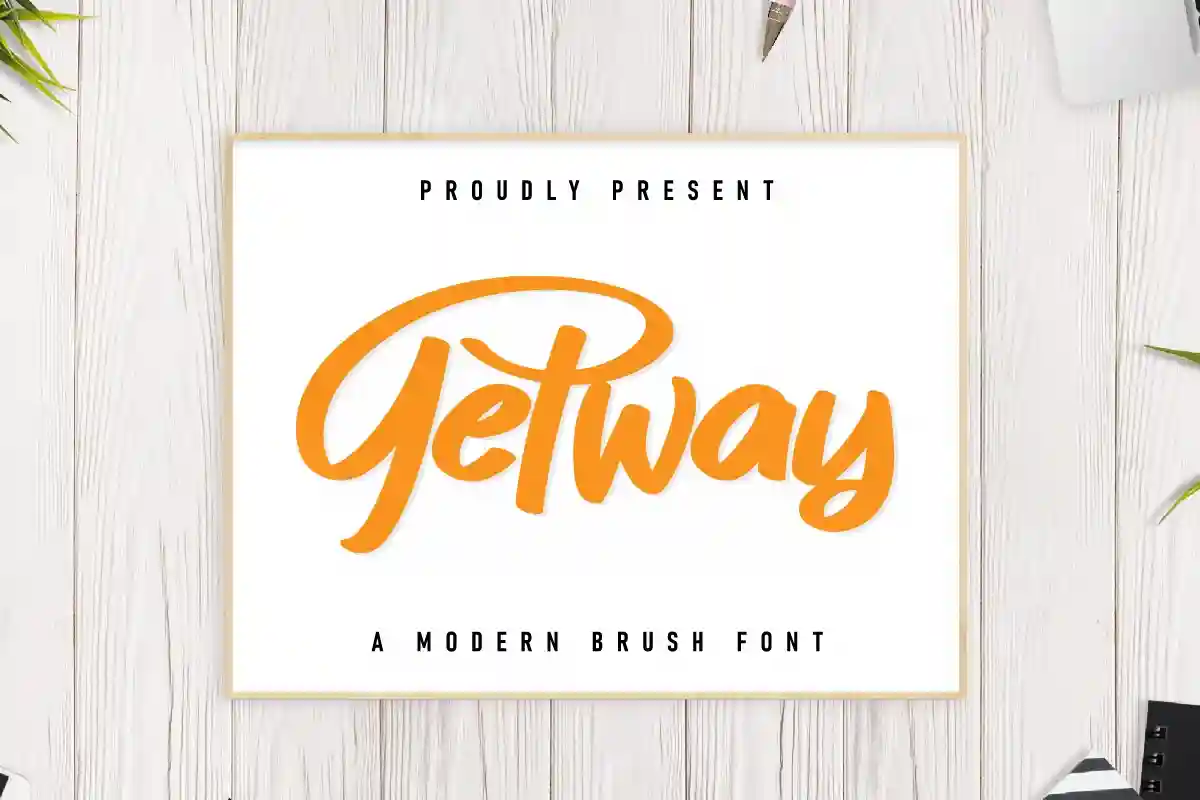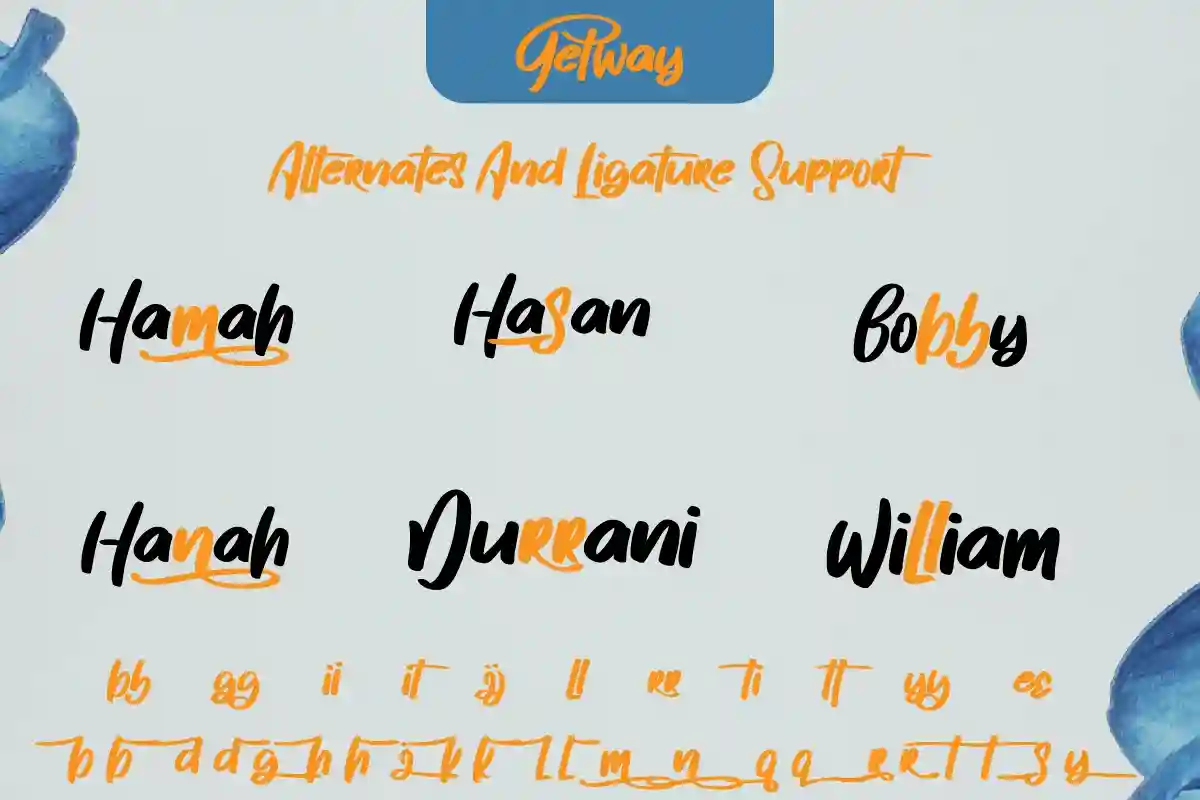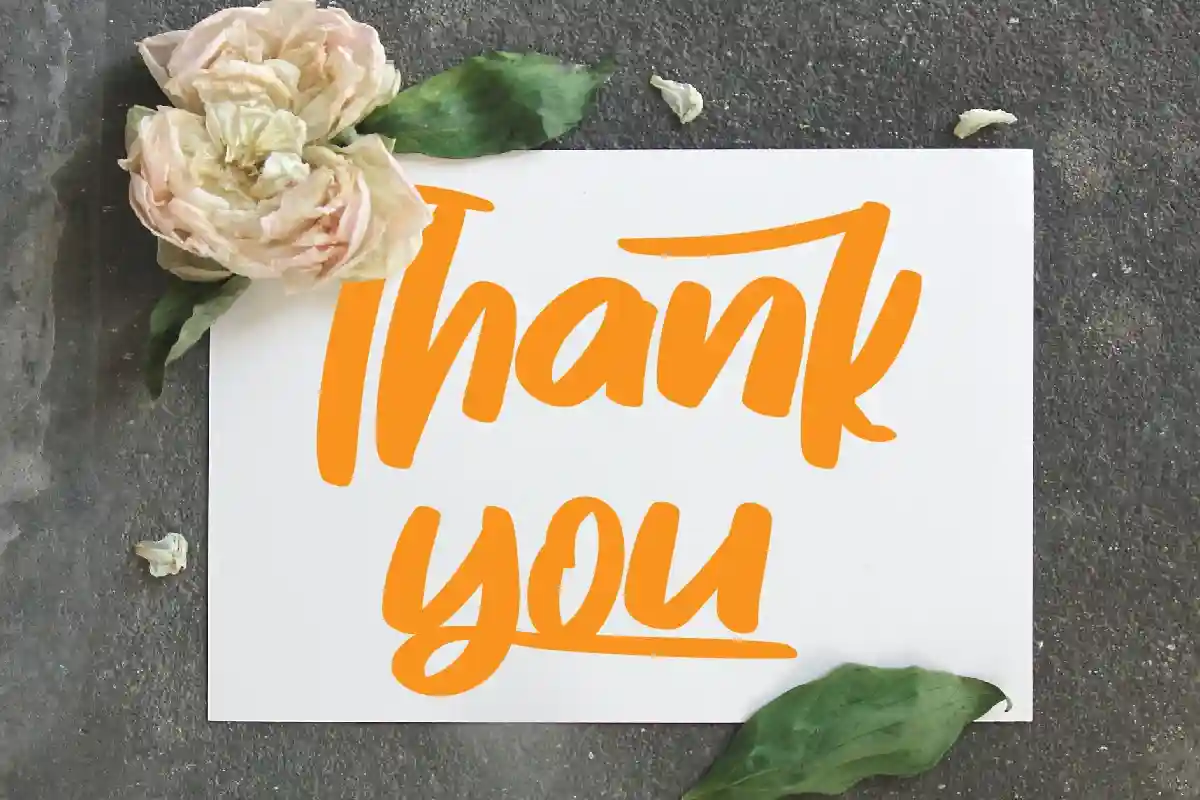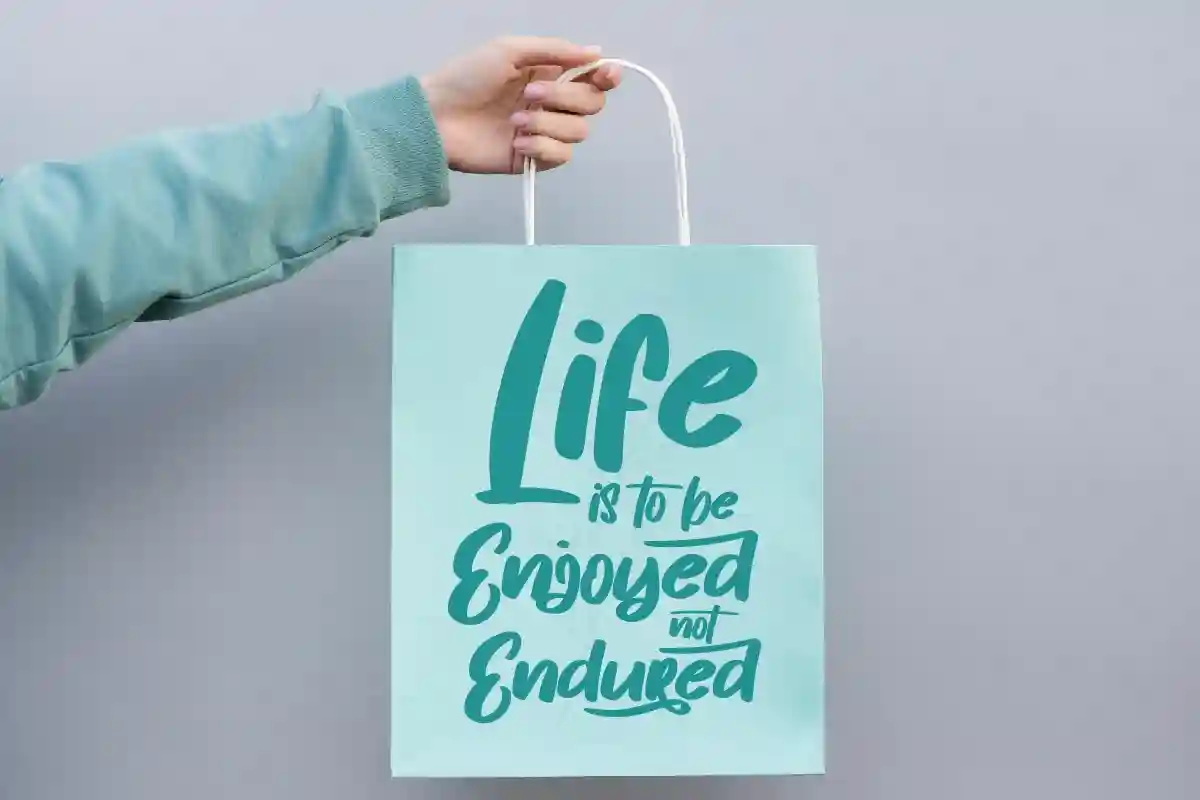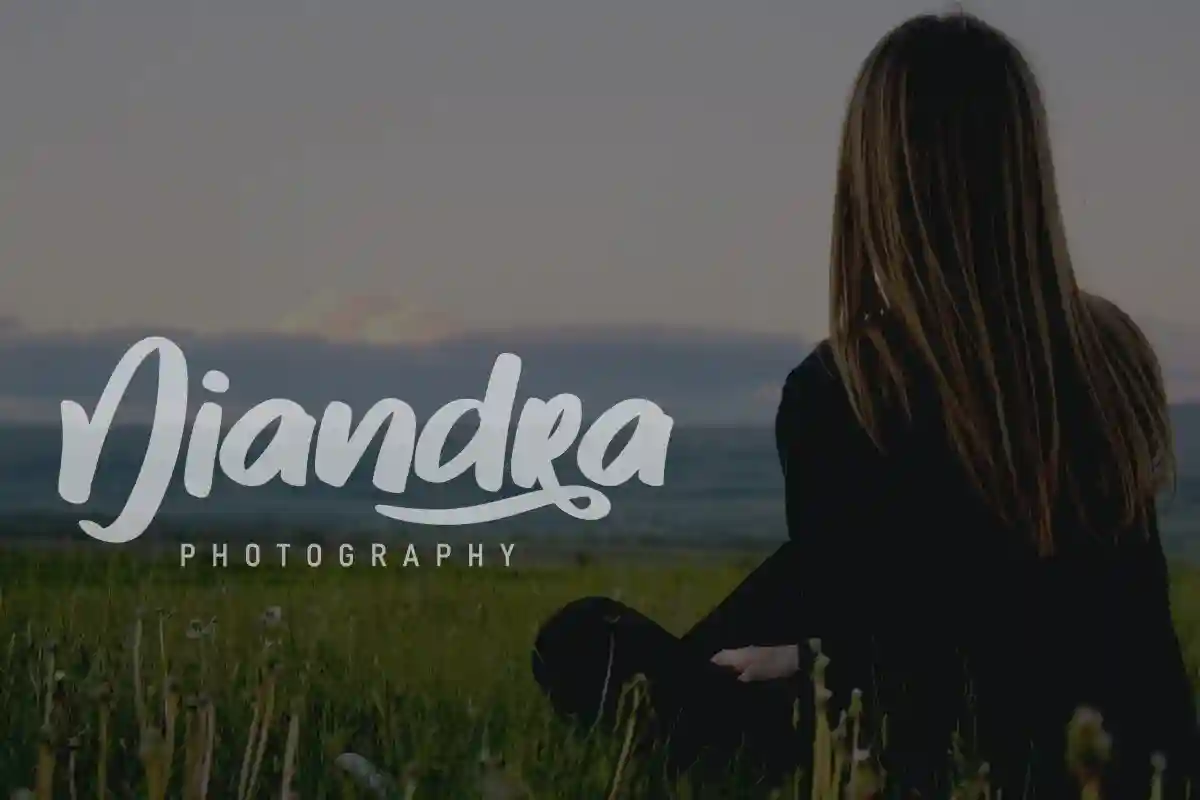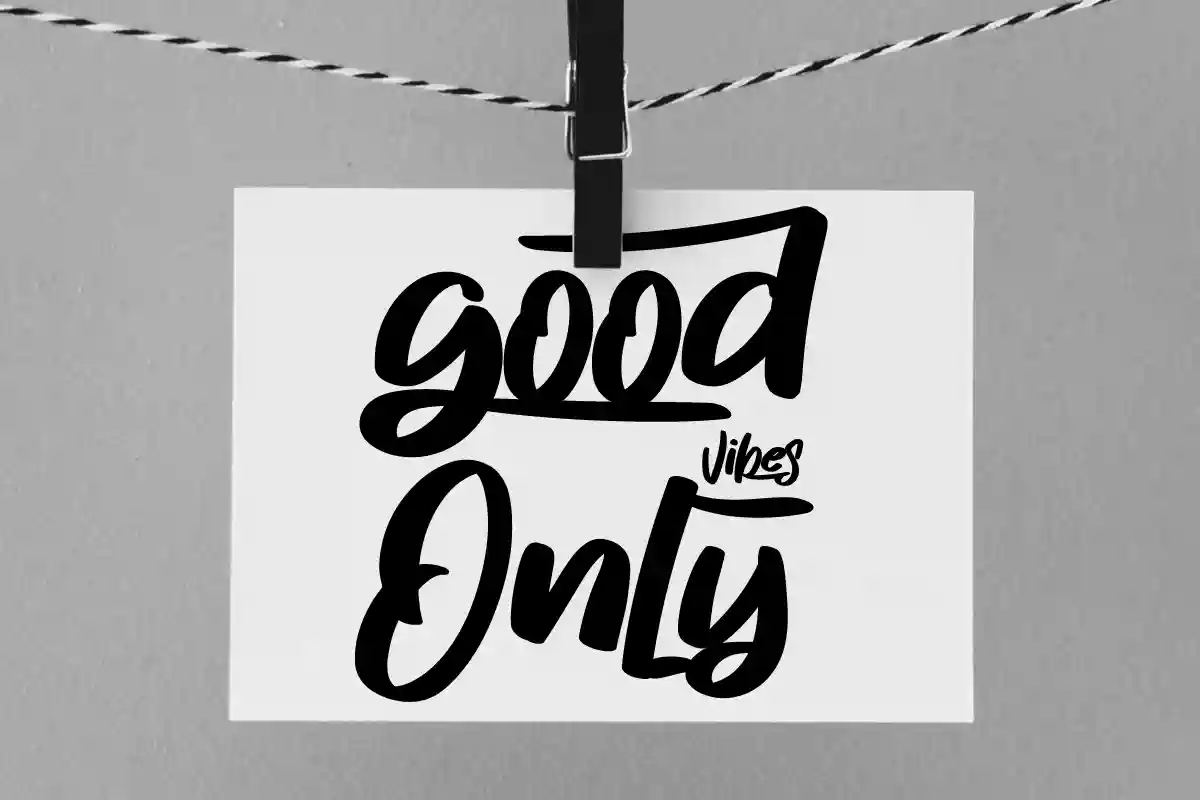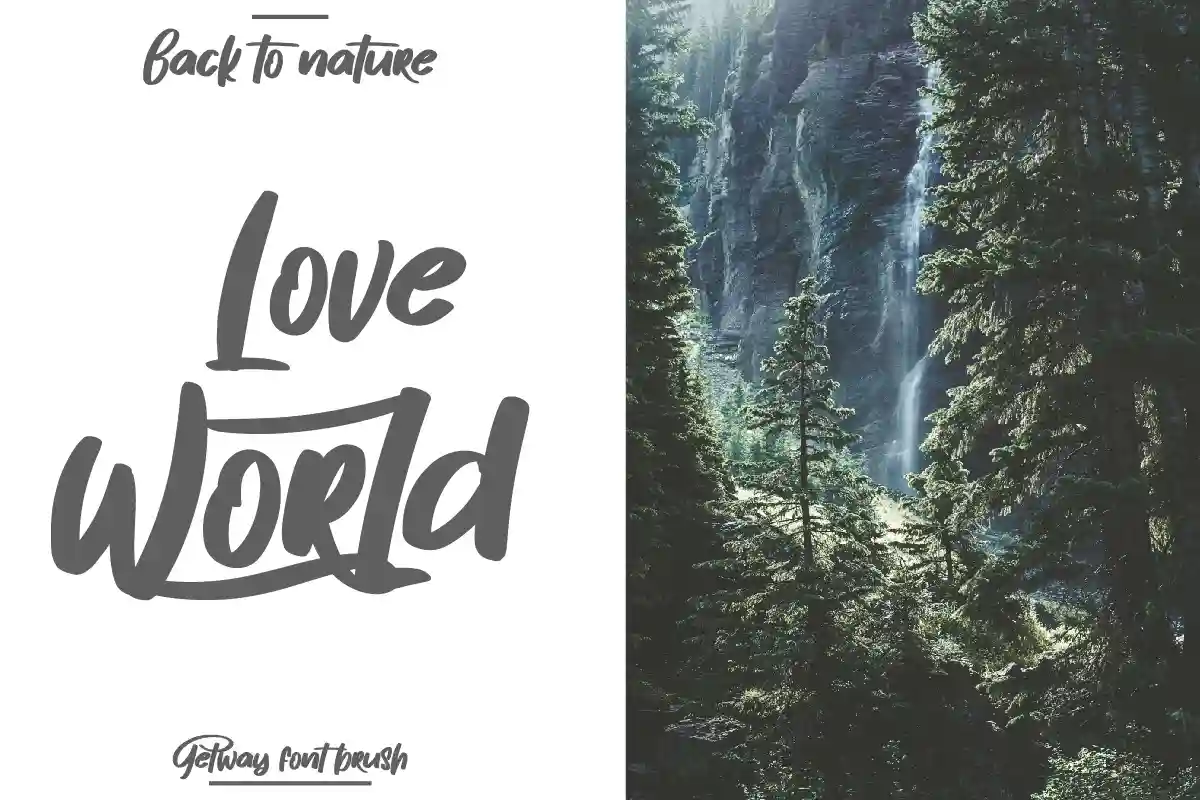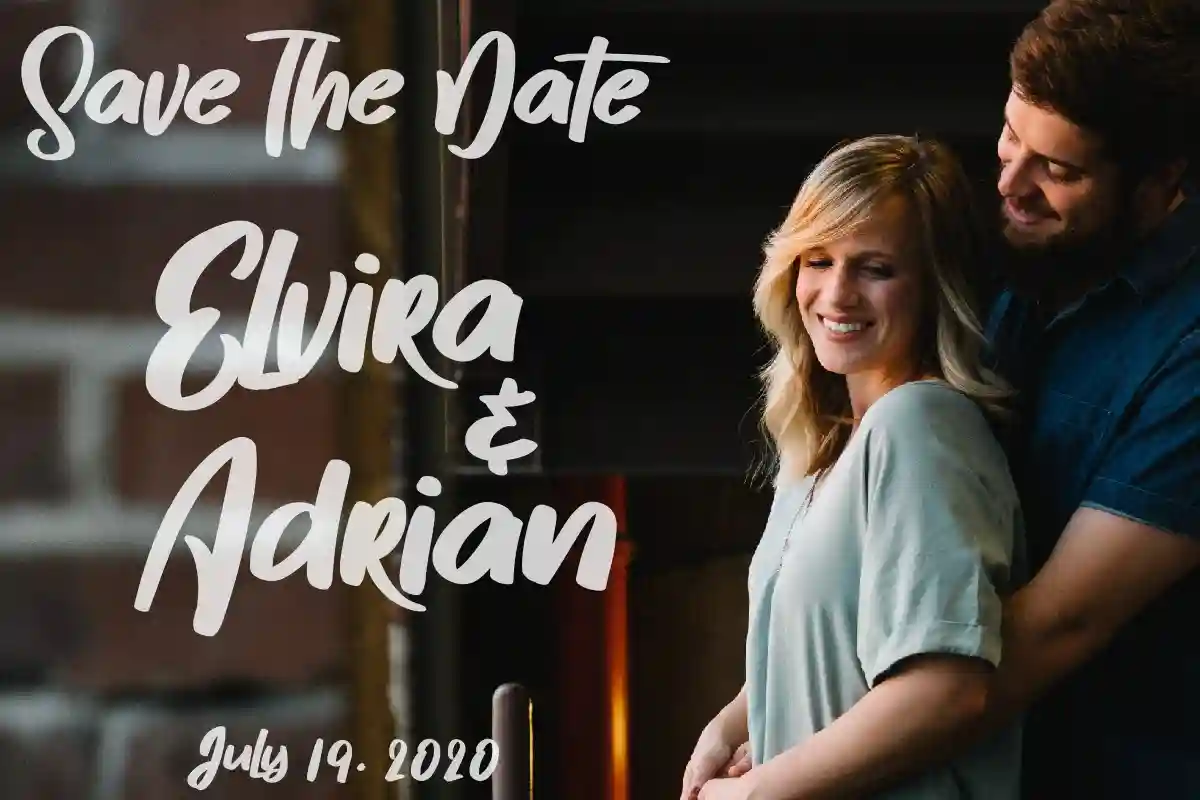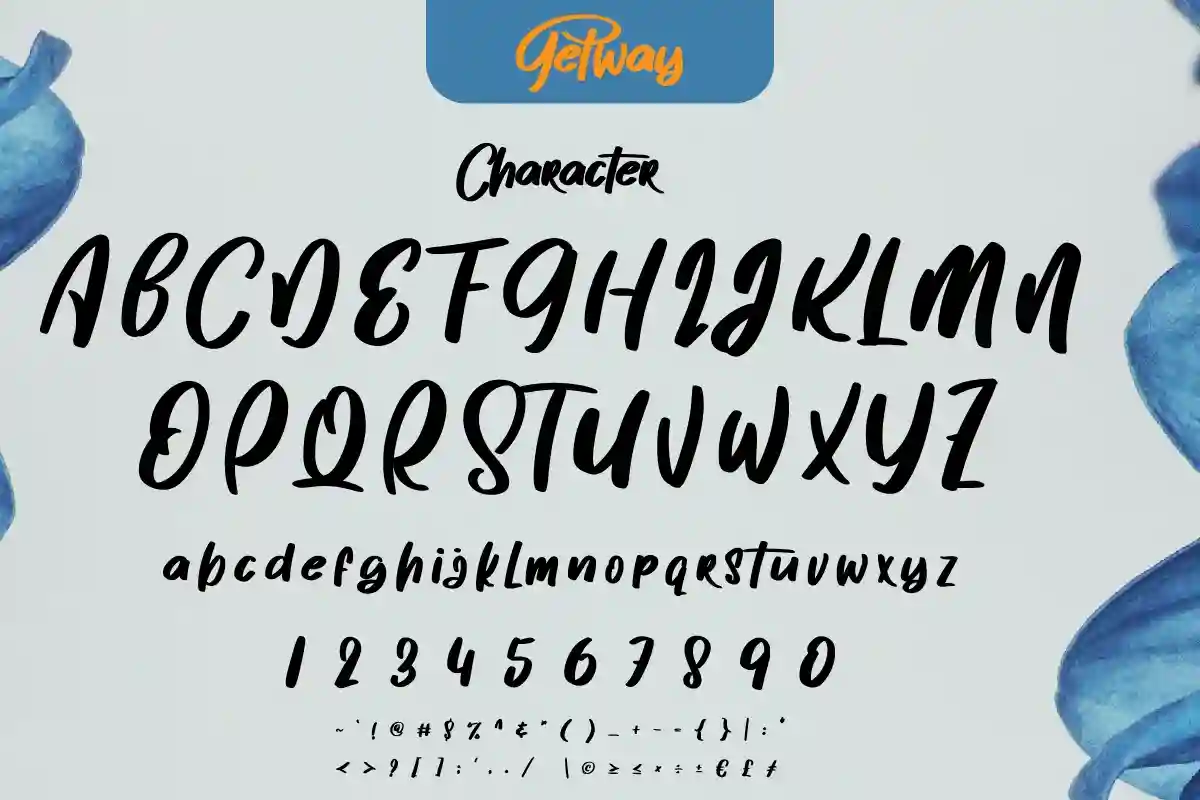
Getway Font is a brush font made by NoahType. This font will add a personal handwriting touch twist to any design project. When we make this font, we really want to create a touch that is so free-flowing that it gives a natural impression on its use later.
For example, if you want letter ‘s’ that has a flow sketch with letter ‘t’, you can find it in ‘st’ ligature glyph (just type in the text form below for trying). This awesome script is for anyone who are needing of elegance and stylish for their designs.
Getway Font includes full set of Uppercase and Lowercase Basic Characters, Numerals and Punctuation. Also it contains ligatures and a lot of alternates characters to perfectly make natural writing look that add more beautiful and aesthetic fonts to perfect your extraordinary project. Getway will be awesome for logotype, invitation, cards, flyer, headline, promotion, social media posts etc